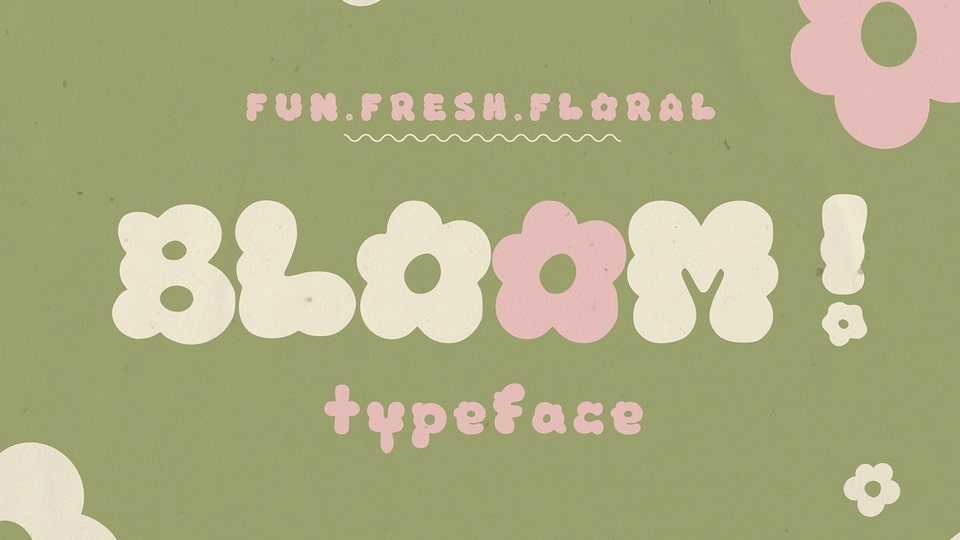
Download Bloom! font, an original display typeface that emulates a strong sense of optimism, hope, and youthfulness. Inspired from childhood toys and aesthetics of the early 2000s, Bloom is a typeface that radiates nostalgia as it takes us back to the good o’l days.